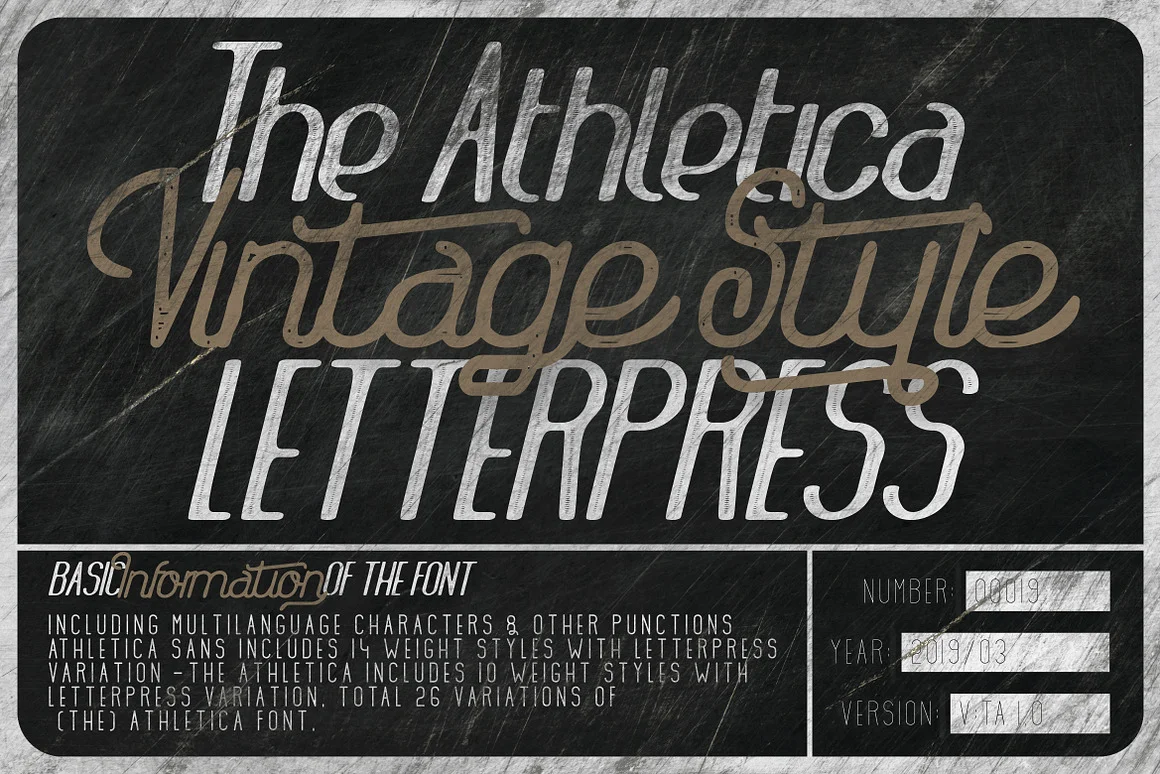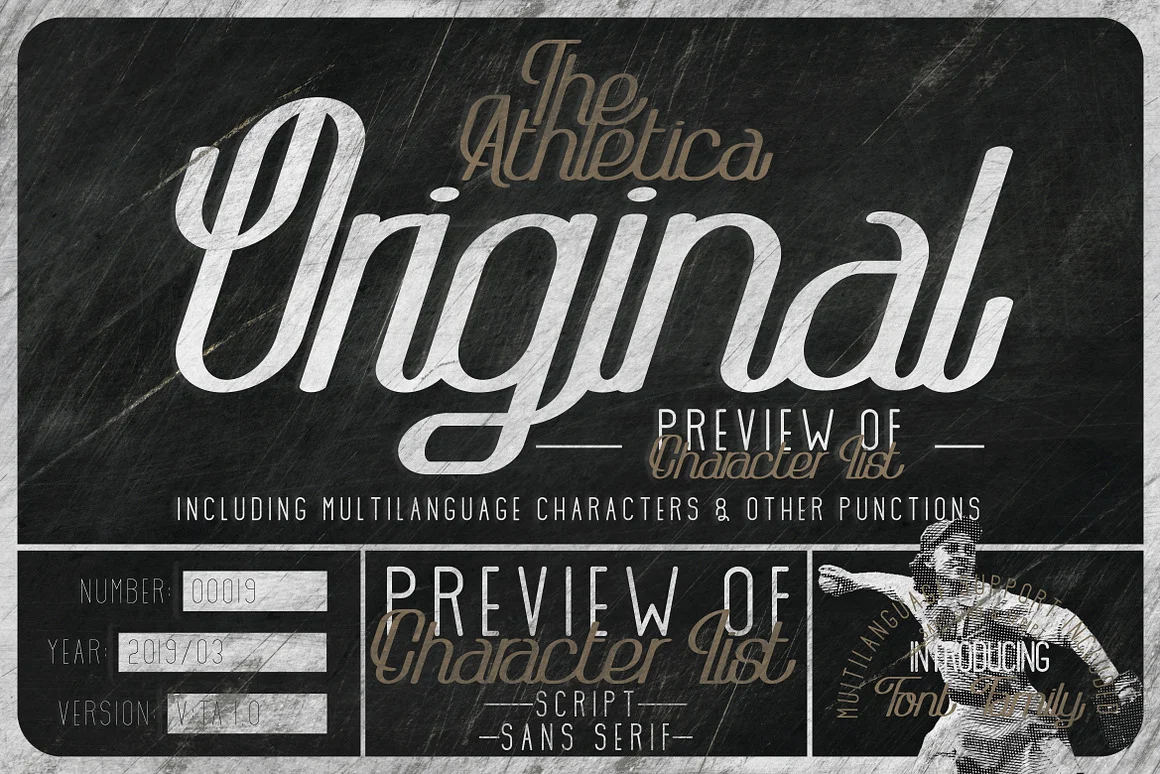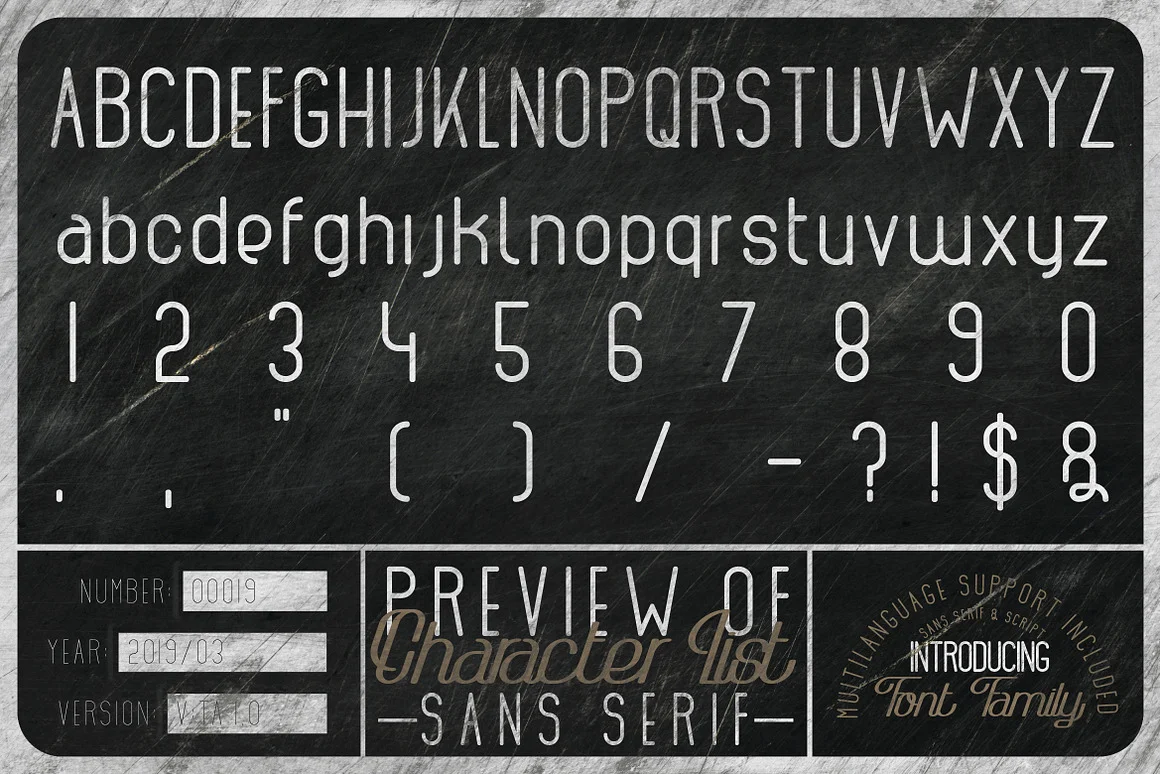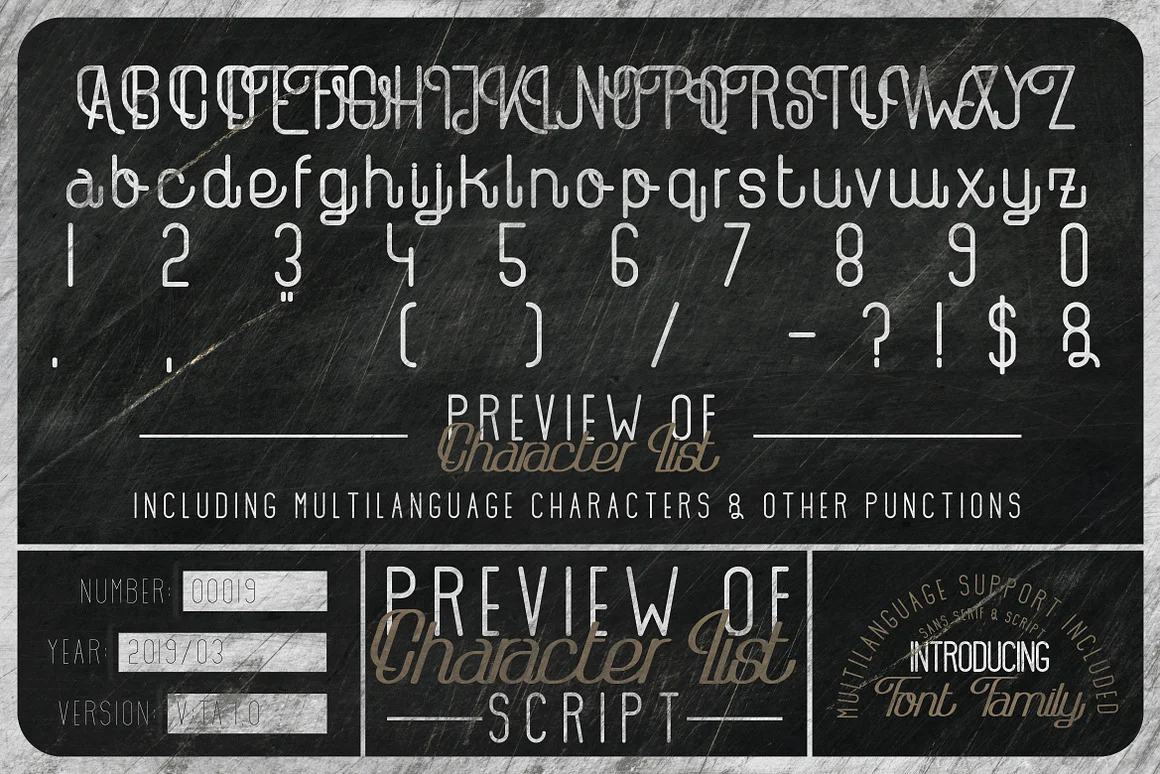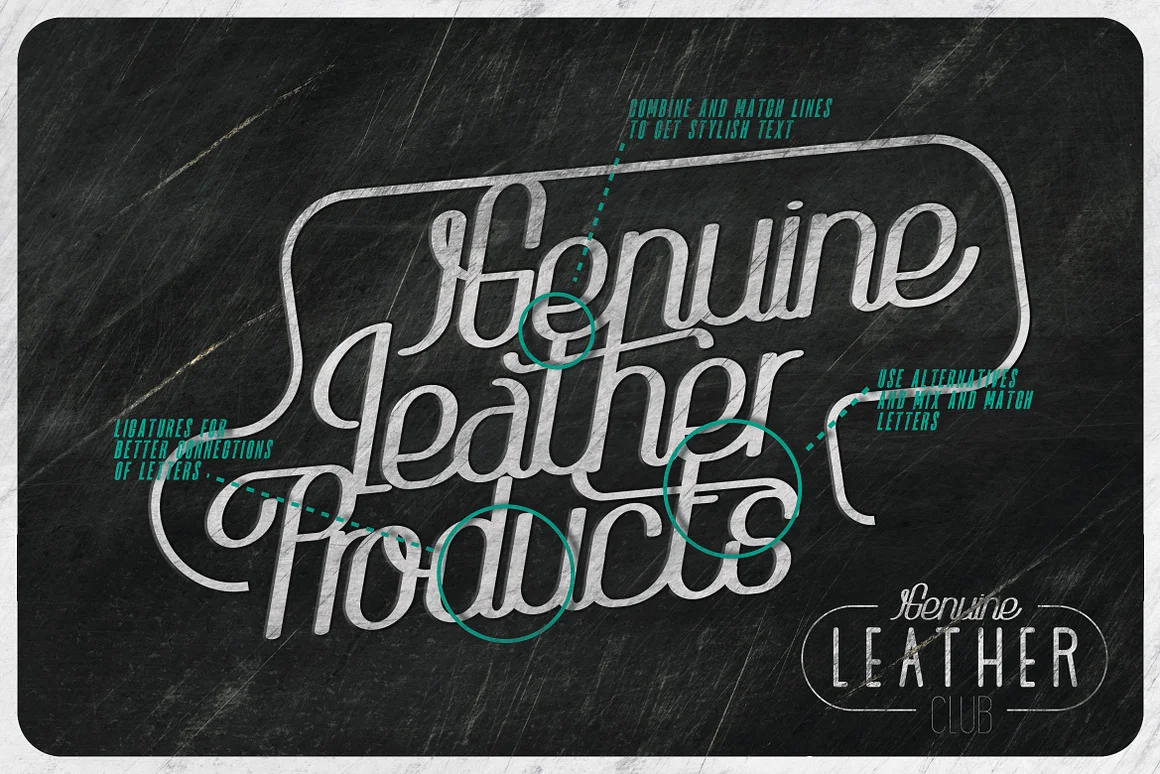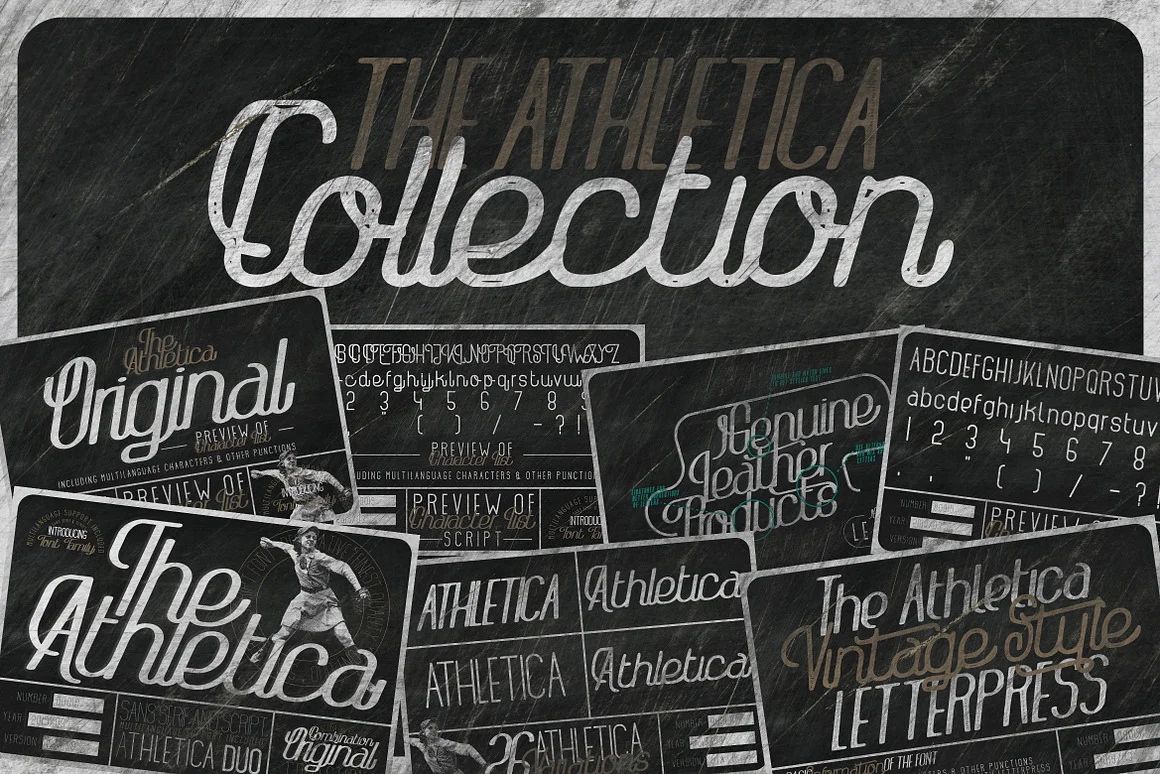
The Athletica Font
The Athletica Font is an handcrafted vintage monoline script and sans-serif. Inspired by retro posters and magazines, postcards and ads in 40's and 50's. Font comes with 26 styles. From Regular to Black, Letterpress variation and many others. The font stays in memory once you see it and it is ideal for display text, print and and also for user interfaces, mobile devices, web design and posters, with a set of optimal characters for your design in any layout. It looks especially great in large scale, although it still carries it at smaller point sizes. The Athletica features: Stylistic alternatives & swashes Ligatures International characters (Multilingual) Punctuation & symbols OpenType Features Athletica Sans features: Uppercase & lowercase International characters (Multilingual) Punctuation & symbols Multilanguage Support: English, Albanian, Danish, Dutch, Estonian, Croatian, Bosnian, Slovenian, Finnish, French, German, Icelandic, Italian, Norwegian, Portugese, Spanish, Swedish with a lot of other languages; see Full Character List. Note: To access the extra alternate letters, you will need to use the glyphs panel. Many design programs offer this ability, including Adobe Photoshop CC 2015 , Adobe Illustrator, Adobe Indesign.